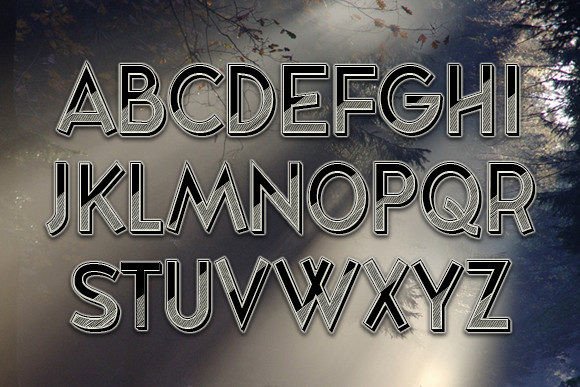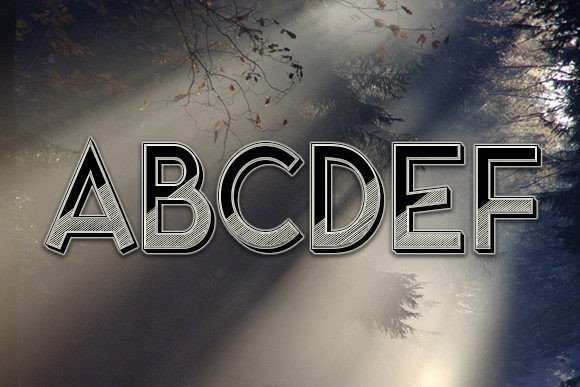
Introducing Fake Shine Font: The Ultimate Display Font for Daring Typography
Are you tired of using the same old fonts for your design projects? Do you want to add a touch of boldness and style to your typography? Look no further than the Fake Shine Font, a cool and unique display font that’s perfect for making a statement. In this article, we’ll dive into the features and benefits of Fake Shine, and explore how it can elevate your designs to the next level.
What is Fake Shine Font?
Fake Shine is a bold and assertive display font that’s designed to make a lasting impression. With its sleek and stylish lines, this font is perfect for designers and crafters who want to add a touch of edginess to their work. Whether you’re creating a logo, poster, or social media graphic, Fake Shine is the perfect choice for projects that require daring typography.
Key Features of Fake Shine Font
- Bold and Assertive: Fake Shine is a bold font that’s designed to grab attention. Its assertive lines and sleek curves make it perfect for creating eye-catching headlines and titles.
- Stylish Touch: Despite its boldness, Fake Shine still maintains a stylish touch that’s perfect for designs that require a touch of sophistication.
- Unique Design: Fake Shine has a unique design that’s unlike any other font out there. Its distinctive lines and curves make it perfect for designers who want to stand out from the crowd.
- Versatile: Fake Shine is a versatile font that can be used for a wide range of design projects, from logos and posters to social media graphics and more.
Benefits of Using Fake Shine Font
So why should you choose Fake Shine for your design projects? Here are just a few benefits of using this amazing font:
- Adds Visual Interest: Fake Shine adds a touch of visual interest to your designs, making them more engaging and attention-grabbing.
- Enhances Brand Identity: With its unique design, Fake Shine can help enhance your brand identity and make your designs more recognizable.
- Perfect for Headlines: Fake Shine is perfect for creating bold and eye-catching headlines that grab attention.
- Easy to Read: Despite its boldness, Fake Shine is still easy to read, making it perfect for designs that require a clear and concise message.
How to Use Fake Shine Font
Using Fake Shine is easy! Here are a few tips for incorporating this amazing font into your design projects:
- Use it for Headlines: Fake Shine is perfect for creating bold and eye-catching headlines that grab attention.
- Pair it with Other Fonts: Fake Shine can be paired with other fonts to create a unique and visually appealing design.
- Experiment with Colors: Fake Shine looks great in a variety of colors, so don’t be afraid to experiment and find the perfect hue for your design.
In conclusion, Fake Shine is a cool and unique display font that’s perfect for designers and crafters who want to add a touch of boldness and style to their typography. With its sleek and stylish lines, this font is perfect for creating eye-catching headlines and titles that grab attention. Whether you’re creating a logo, poster, or social media graphic, Fake Shine is the perfect choice for projects that require daring typography. So why wait? Download Fake Shine today and take your designs to the next level!